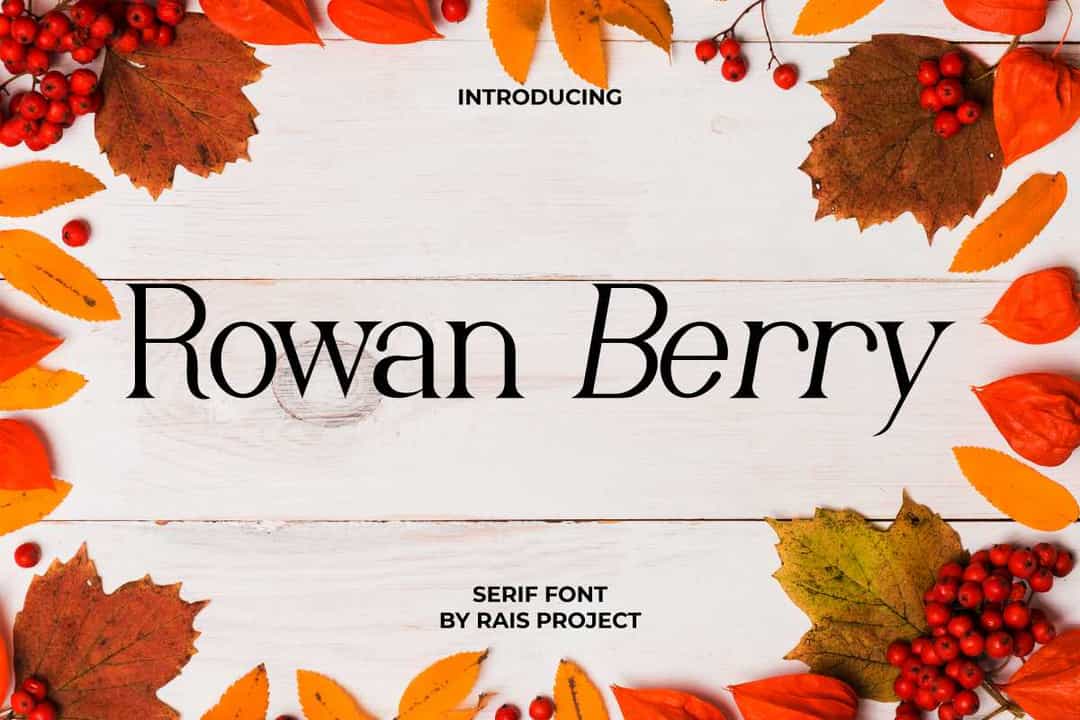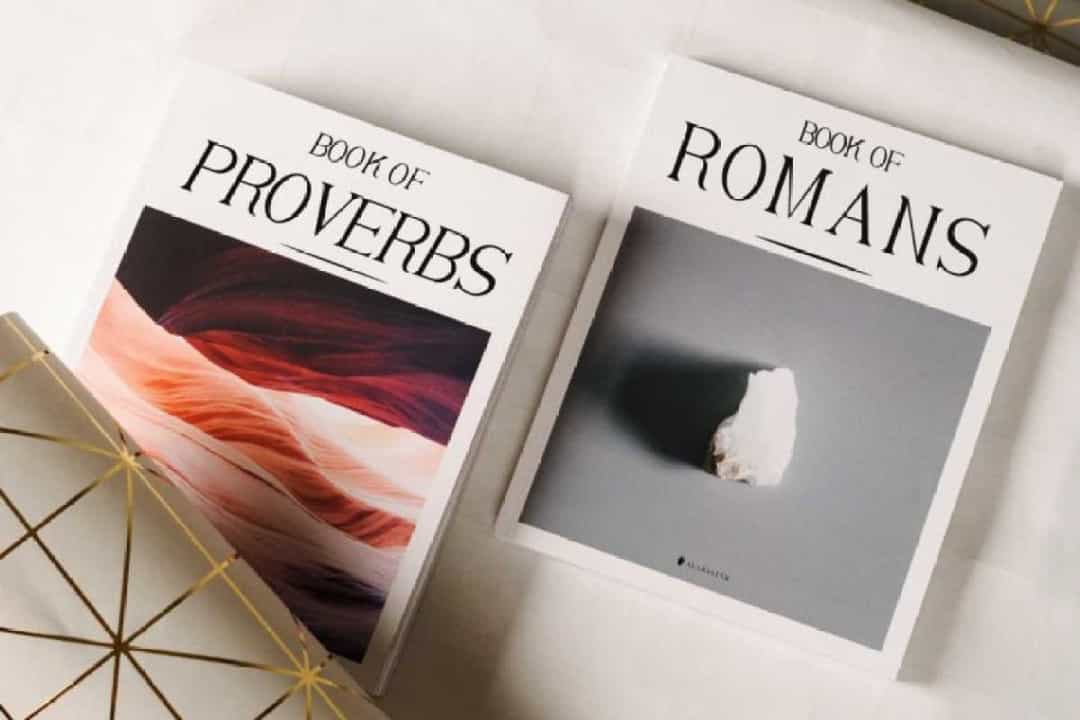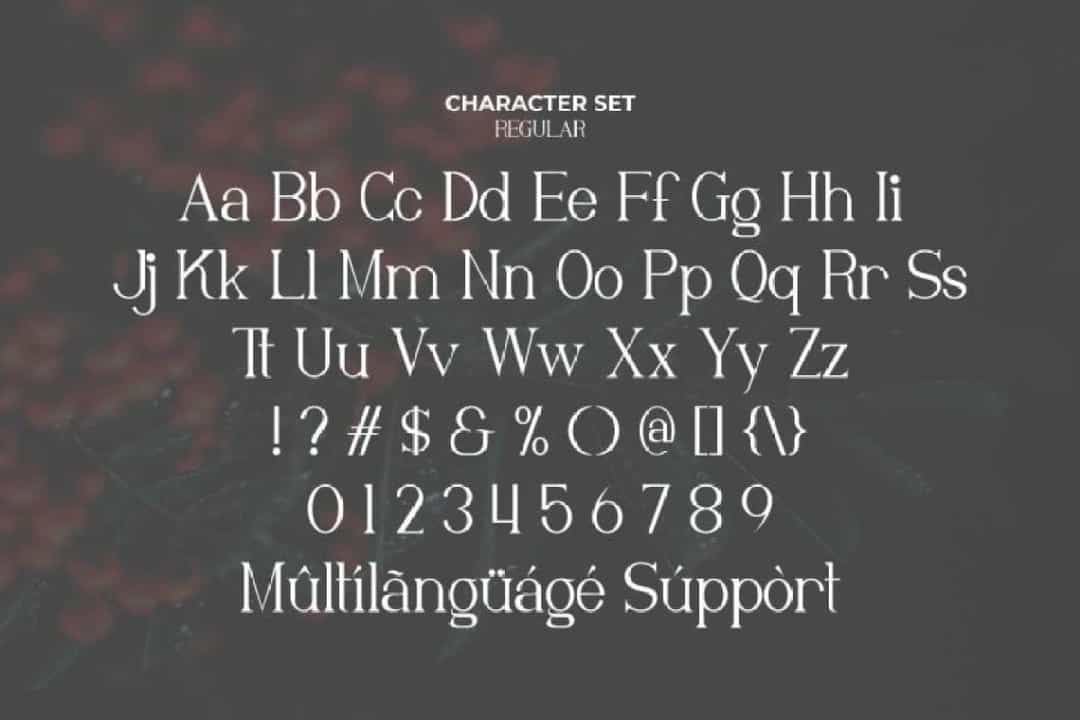
Discover Rowan Berry Font, part of the Serif collection—a versatile and unique font perfect for adding a personal touch to your projects. Download it for free and enjoy crafting designs with style, from invitations to social media posts. This font is available exclusively for personal use, giving you the freedom to create without limits. Unlock your creativity with Rowan Berry Font today!
Rowan Berry Serif Font was designed by RaisProject and can be utilized in all your projects, including branding, advertising, magazine signs, invitations stationary and social media post labels; or any other that require an original minimalist design. Industries which could benefit include fintech, startups, cars, apps, cosmetic, beauty technology apps game magazines music sports etc